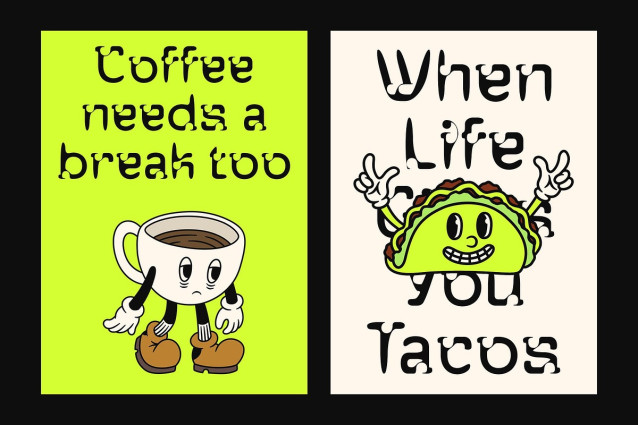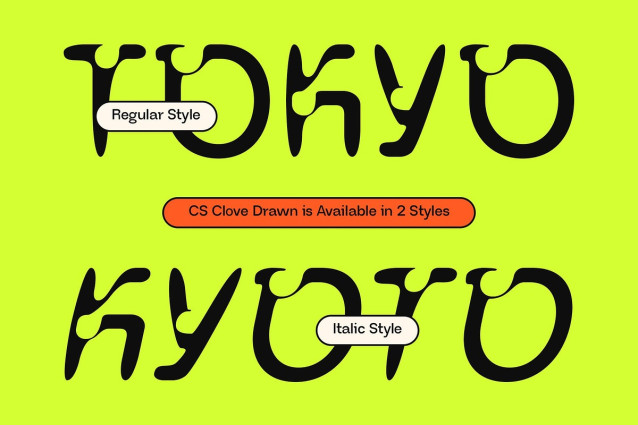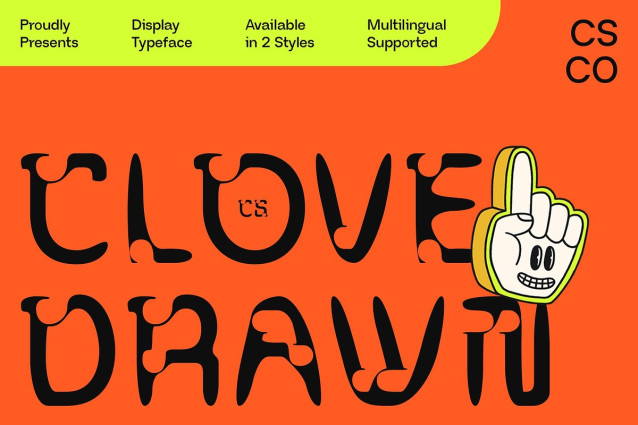
CS Clove Drawn Font – This is a modern decorative display font that blends structured letterforms with a hand-drawn effect, resulting in a typeface that feels both artistic and personal. Its unique, sketch-like texture gives each character a bold and expressive presence, adding warmth and authenticity to your visuals.
Creative, Bold, and Full of Character Designed to stand out, this font brings a casual yet striking aesthetic that works perfectly for posters, editorial headlines, artistic branding, and book covers. Whether youâre designing for print or digital, this rustic font adds a distinctive, handcrafted energy to your work.
Ideal for Artistic and Individualistic Visuals The combination of decorative structure and handmade feel makes this font versatile across a range of themesâespecially those that celebrate creativity, storytelling, and individuality. From experimental designs to contemporary branding that calls for warmth and human touch, this artistic font offers the perfect typographic balance.
Designed for Designers Who Think Differently If youâre looking for a typeface that blends personality with polish, this expressive font delivers. Its handmade charm and modern decorative feel make it a great choice for bold, inventive work that celebrates authenticity and visual creativity.